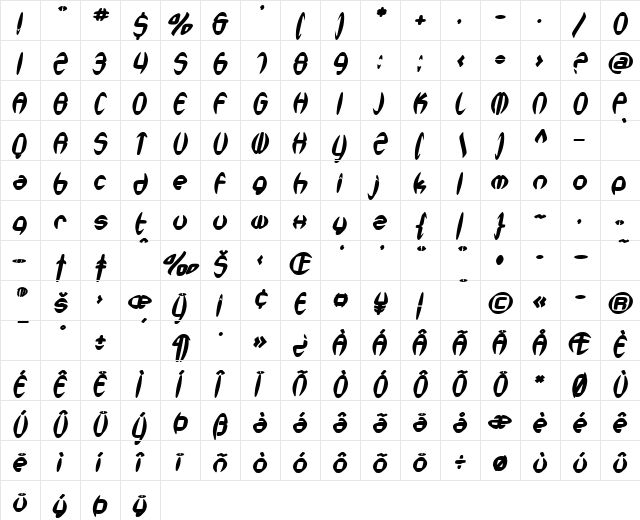
SF Synthonic Pop Bold Oblique
Design Context for SF Synthonic Pop Typeface
SF Synthonic Pop is a composed and adaptable typeface that performs quietly and consistently across a wide range of design contexts. The slanted form adds forward momentum and visual energy. Its bold stroke weight gives it real presence on the page.
Pro Tip: Try SF Synthonic Pop for annotation and caption copy alongside an upright companion — the contrast in angle creates a dynamic but ordered typographic system.